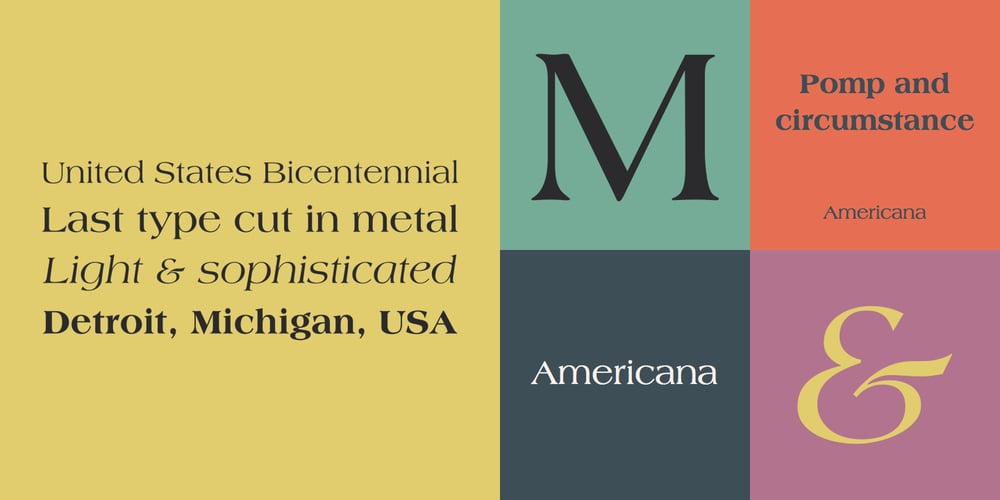
Americana
Americana font
Americana Font Family was designed by Richard Isbell and published by Linotype. Americana contains 4 styles and family package options. Americana was designed by typeface artist Richard Isbell in 1965. The generous forms of this typeface contain large inner spaces. Lines of text look light and airy and require generous line spacing. The high cross strokes and the open inner spaces make this font highly legible even in small and very small point sizes. The triangular serifs are a distinguishing characteristic of Americana. These first appeared in the 19th century in France and inspired by the developments in lithography, which allowed for freer forms. The forms were typical for advertisement and display typefaces. The sophisticated Americana is particularly suitable for advertisements and personal correspondence.